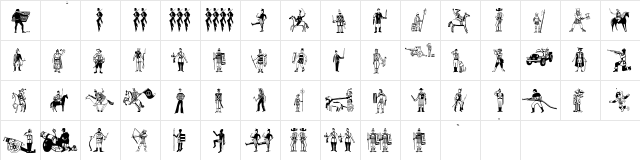
PeaceFightersOne Regular
Design Context for PeaceFightersOne Typeface
PeaceFightersOne is a composed and adaptable typeface that performs quietly and consistently across a wide range of design contexts.
Pro Tip: Use PeaceFightersOne in both headline and body roles to test its range before committing to a single application.